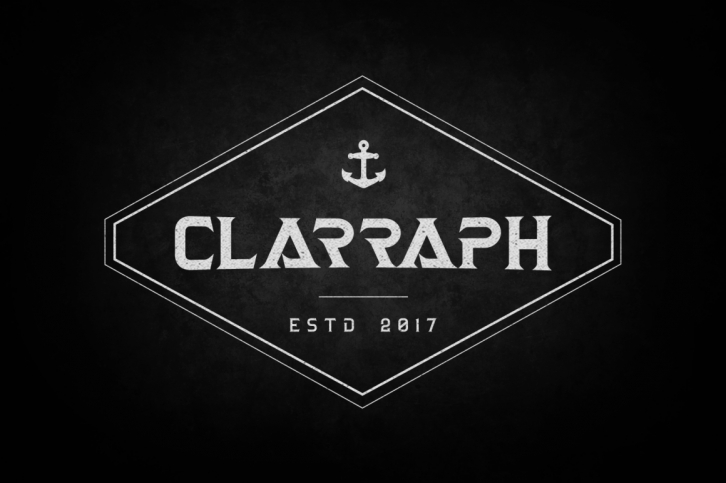
Clarraph is a heavy and masculine display font, ideal for logotype and other display purposes. This stencil all caps font is a great way to give your projects a hyper tough and bold look.